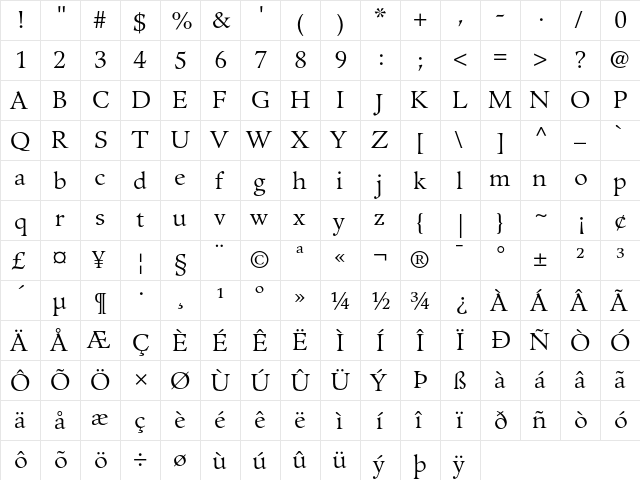
Guardi 55 Roman
Design Context for Guardi Typeface
Guardi takes a measured approach to typography — its balanced proportions and neutral character make it a reliable workhorse for both digital and print work.